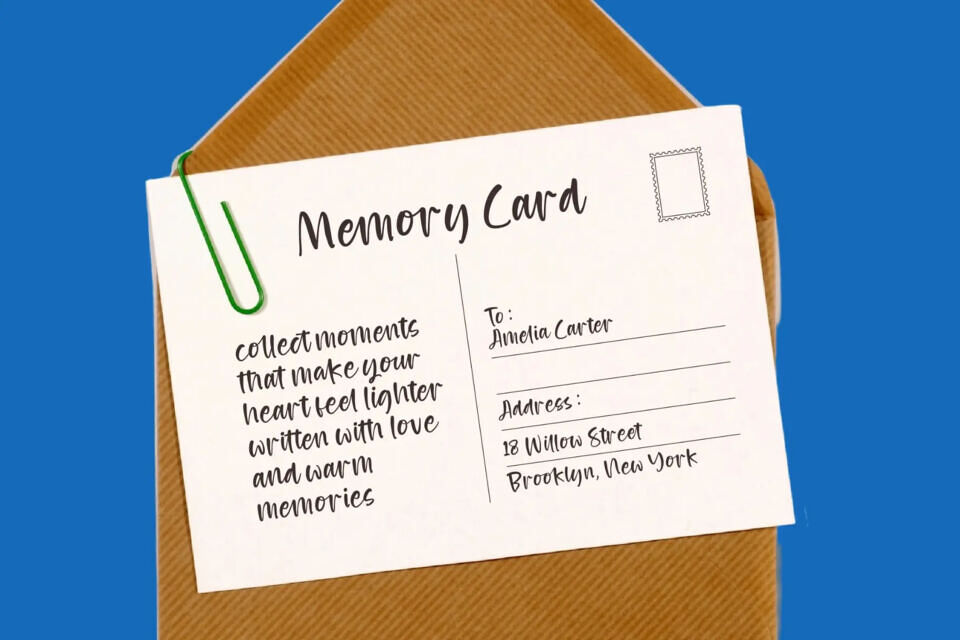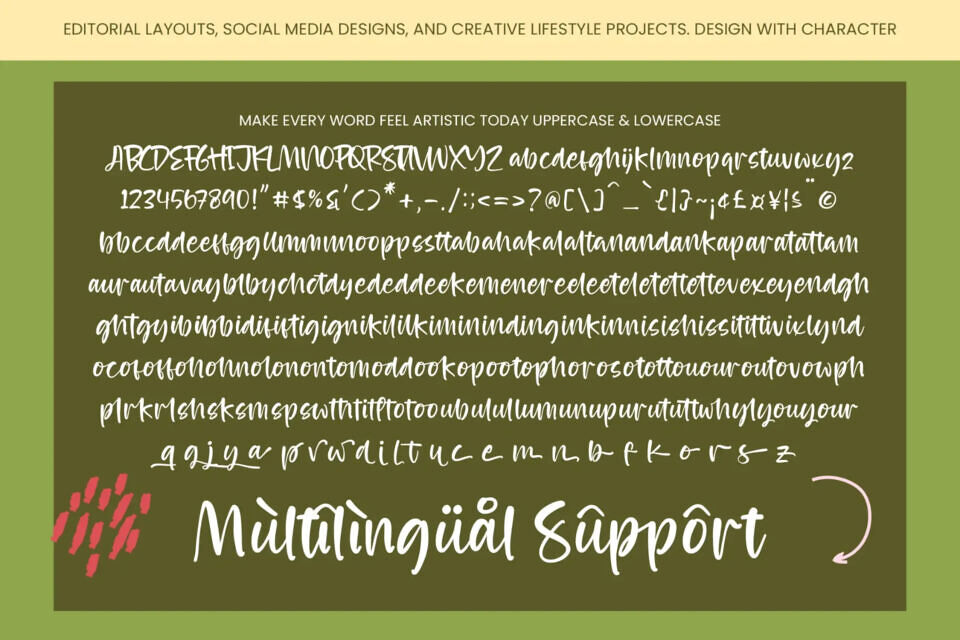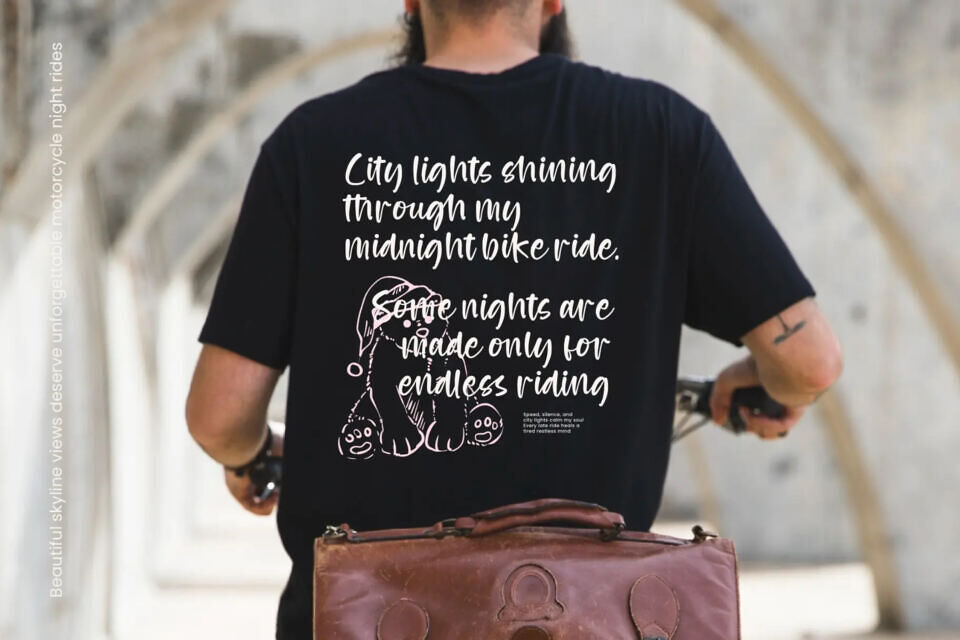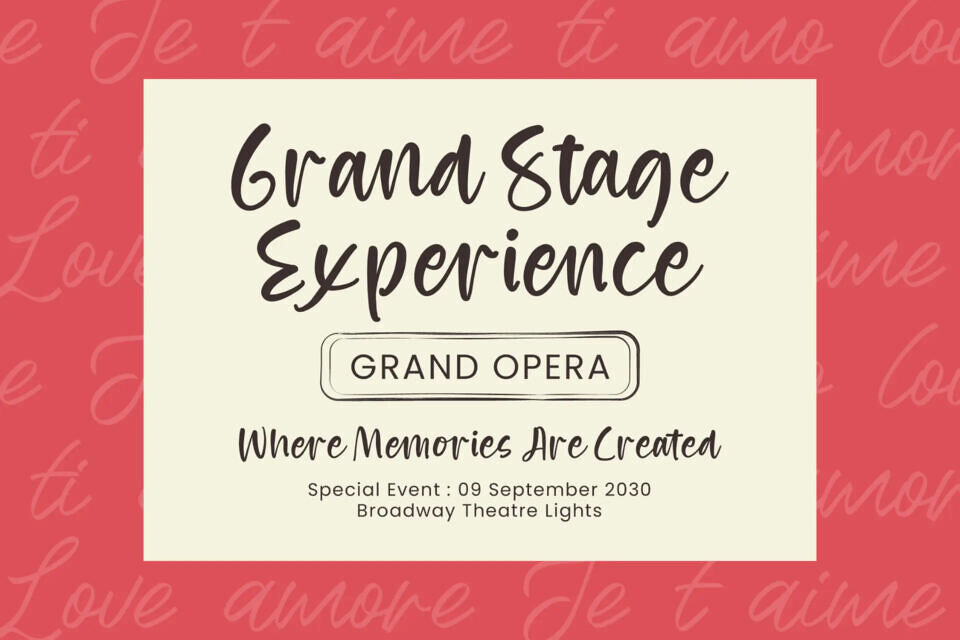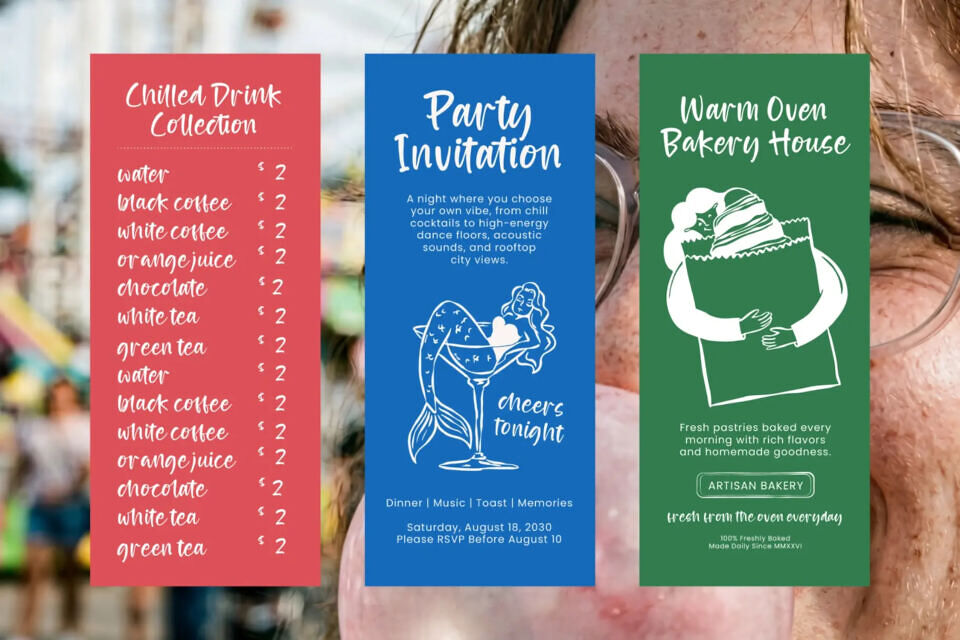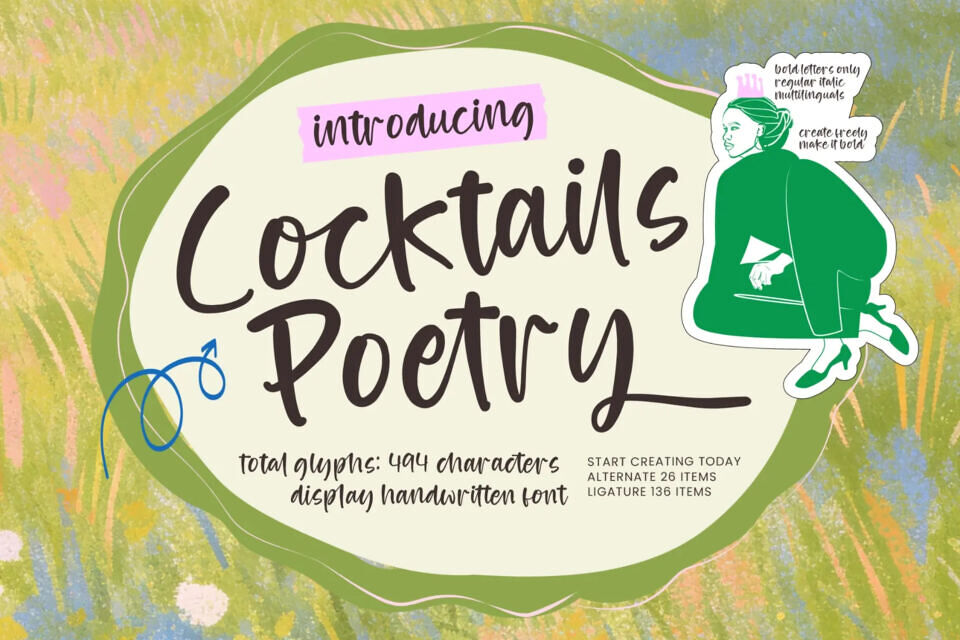
Cocktails Poetry Font
Elevate your creative vision with the organic elegance of Cocktails Poetry – Display Handwritten Font. This premium typeface captures a unique hand-drawn aesthetic that balances casual sophistication with artistic flair.
Designed to command attention, its fluid strokes and natural letterforms provide an authentic, human touch to any digital or print project. Whether you are aiming for a chic boutique vibe or a relaxed, modern look, this display font offers the perfect stylistic foundation for your next masterpiece.